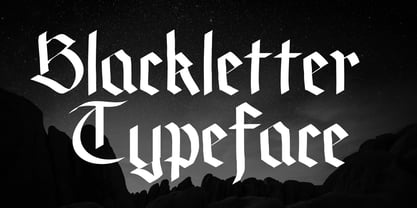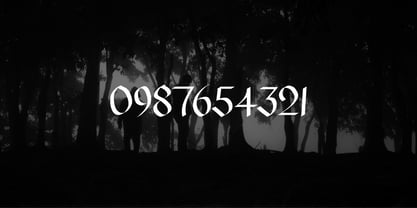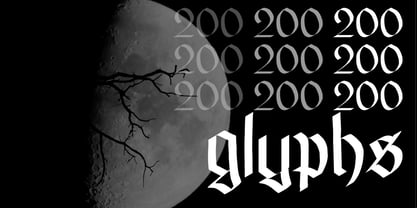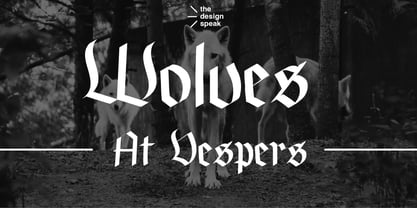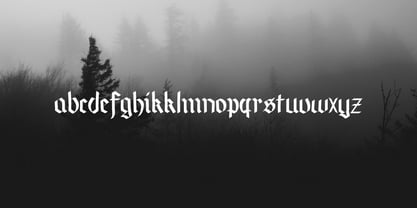
Wolves at Vespers
by The Design Speak
The Wolves at Vespers Font Family was designed by Edward Marshall and published by The Design Speak. Wolves at Vespers contains 1 styles. More about this family
Wolves at Vespers is a gothic blackletter typeface that evokes the raw, untamed elegance of medieval manuscripts with a handwritten twist. Its letterforms are steeped in dark romanticism, combining sharp, angular strokes with fluid, calligraphic curves that suggest the hand of a scribe working by candlelight. The characters feature dramatic contrasts between thick verticals and delicate flourishes, imbuing the typeface with a sense of mystery and reverence.
Each glyph carries a subtle irregularity, giving it an authentic, hand-drawn feel that captures the essence of ancient texts etched during twilight hours. Perfect for evoking a hauntingly beautiful atmosphere, Wolves at Vespers is ideal for projects that demand gothic drama—be it in album covers, book titles, or branding steeped in historical or mystical themes.
Designers: Edward Marshall
Foundry: The Design Speak